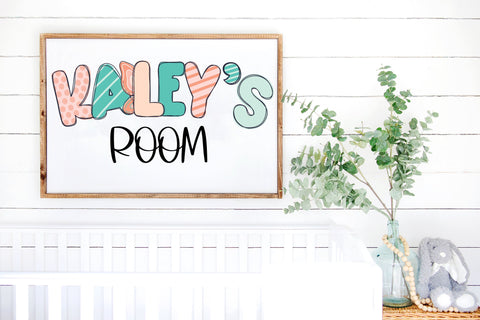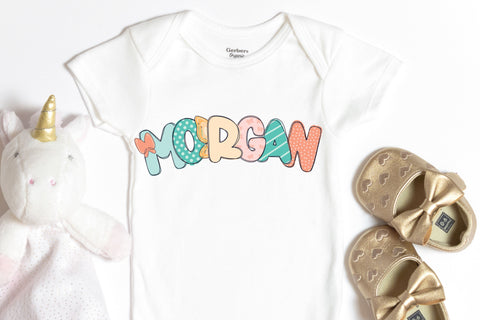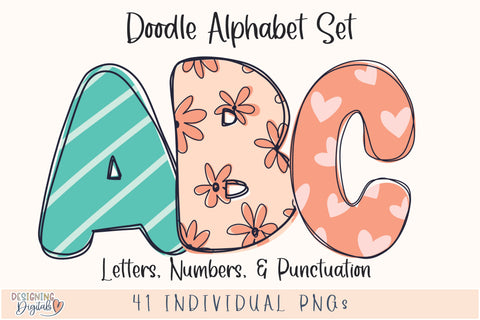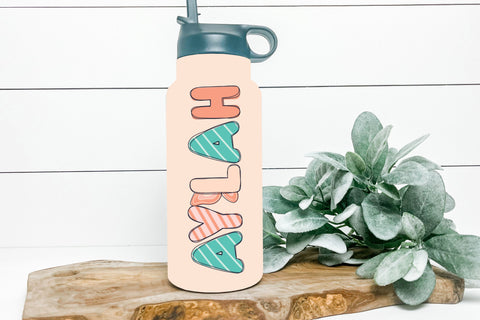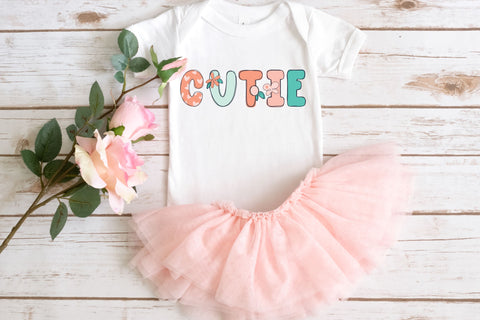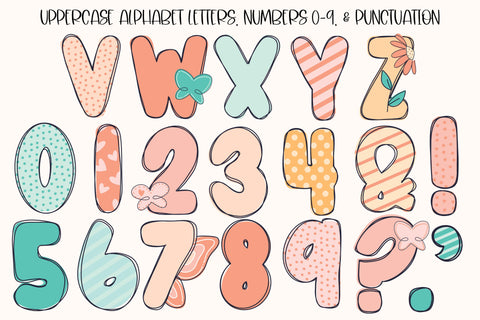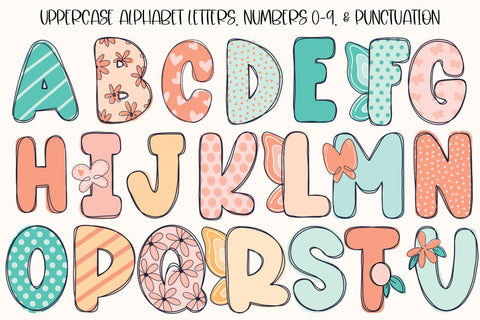
Butterfly Doodle Letters SVG, Cute Girl PNG Sublimation Alphabet, Floral Alphabet Lettering
Add a touch of whimsy to your projects with our Butterfly SVG Doodle Letters! This Cute Girly PNG Sublimation Alphabet features beautiful, intricate butterfly and floral designs, perfect for crafting personalized items such as T-shirts, wall art, and gifts. Ideal for those looking to add a feminine and nature-inspired vibe to their creations, this Floral Alphabet Lettering is great for custom designs with a soft, elegant flair. Whether for home decor or fun crafts, these butterfly-themed letters will make your projects truly stand out!